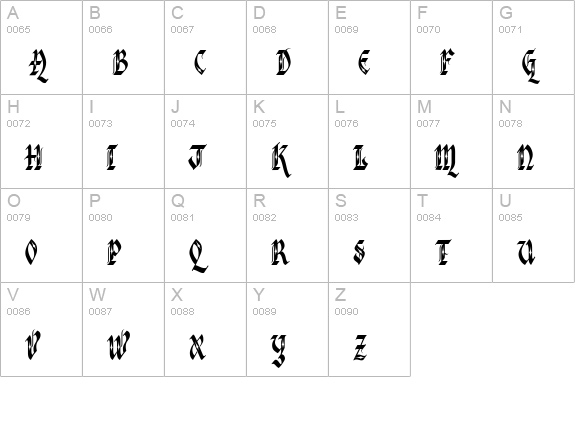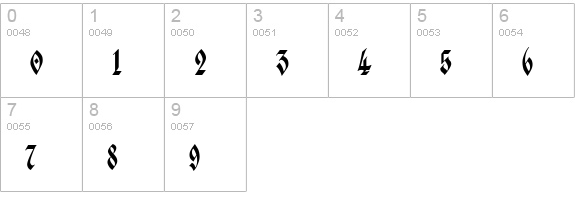
Verona Gothic Flourishe Font Details
Verona Gothic Flourishe font is a stunning display font that combines elegance with a touch of Gothic charm. With its intricate and ornate details, this font is perfect for adding a touch of sophistication to any project. The Verona Gothic Flourishe font features bold and striking letterforms, with intricate flourishes and delicate embellishments that give it a truly unique and captivating look. Whether you're designing a logo, creating a poster, or crafting a wedding invitation, this font will instantly elevate your design and make it stand out. One of the best things about Verona Gothic Flourishe font is that it is available for free. Yes, you heard that right! This incredible font can be downloaded at no cost from FontsMarket.com. This means that you can add a touch of elegance to your projects without breaking the bank. Not only is Verona Gothic Flourishe font visually stunning, but it is also incredibly versatile. It works well in both large and small sizes, making it perfect for a wide range of design applications. Whether you're creating a headline, body text, or decorative element, this font will bring a touch of sophistication and style to your work. The Verona Gothic Flourishe font is a true gem in the world of typography. Its intricate details and elegant charm make it a must-have for any designer or creative enthusiast. And the fact that it is freely available to download at FontsMarket.com only adds to its appeal. So don't miss out on this incredible font – download Verona Gothic Flourishe today and let your creativity flourish!